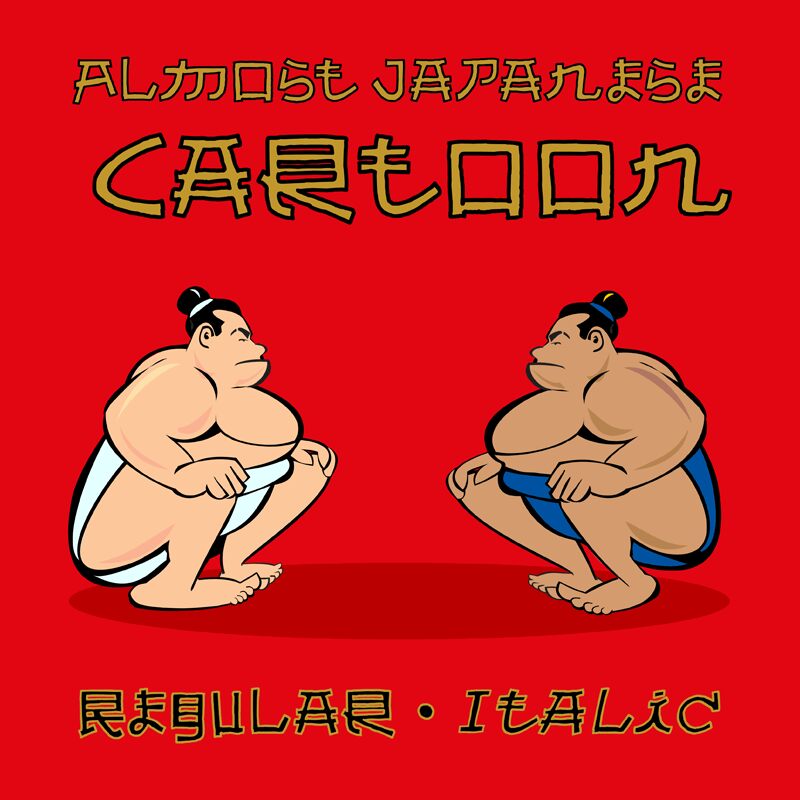
Almost Japanese Cartoon Regular
Almost Japanese Cartoon font by Galdino Otten Fonts is a free outlined faux-foreign display font. Part of the Almost Japanese family, it leans into playful manga vibes with chunky, squared strokes wrapped in crisp hollow outlines. The letters stack like cut paper—boxy, rhythmic, and high-contrast—so headlines read with instant, comic-style pop.
Using Almost Japanese Cartoon, you can juice up anime watch‑party posters, ramen pop‑up menus, retro arcade streams, convention badges, sticker packs, and bold YouTube thumbnails. This free font shines when set big with a touch of extra letterspacing and a drop shadow for depth; pair it with a simple sans to handle body copy. It’s the quick way to say “Saturday‑morning energy” without getting precious.